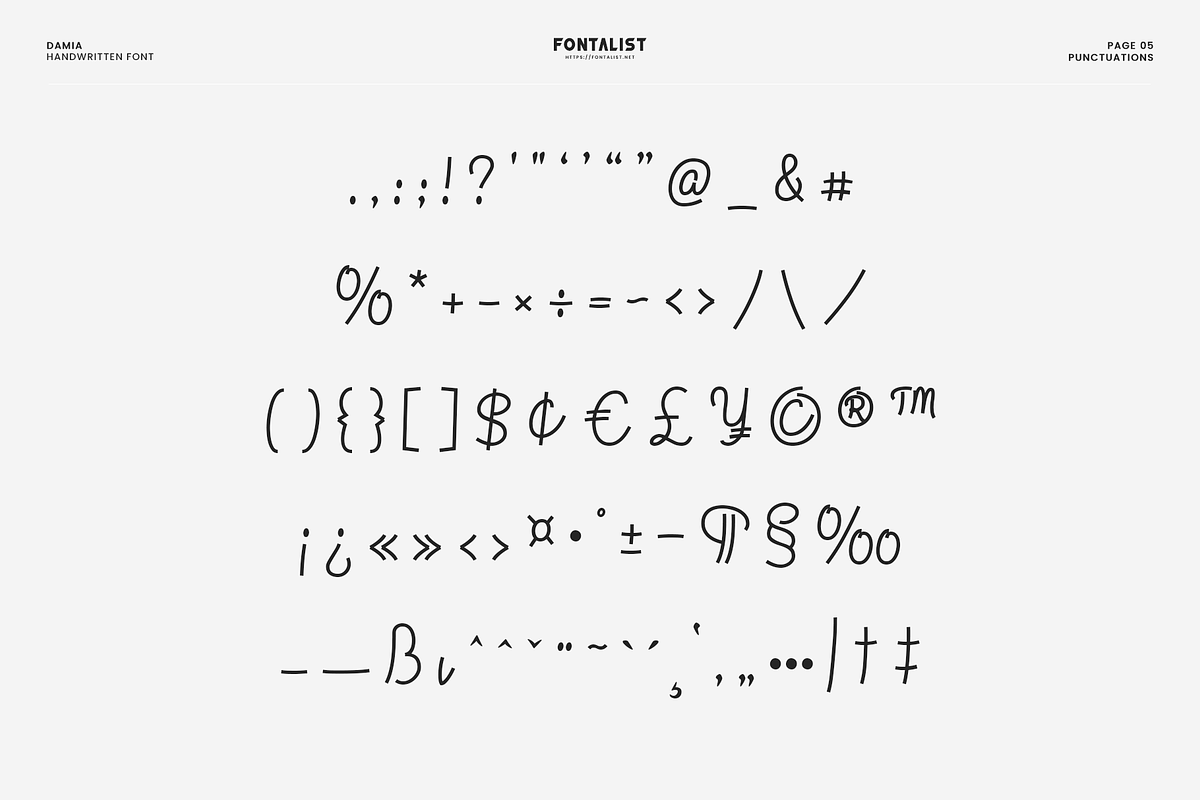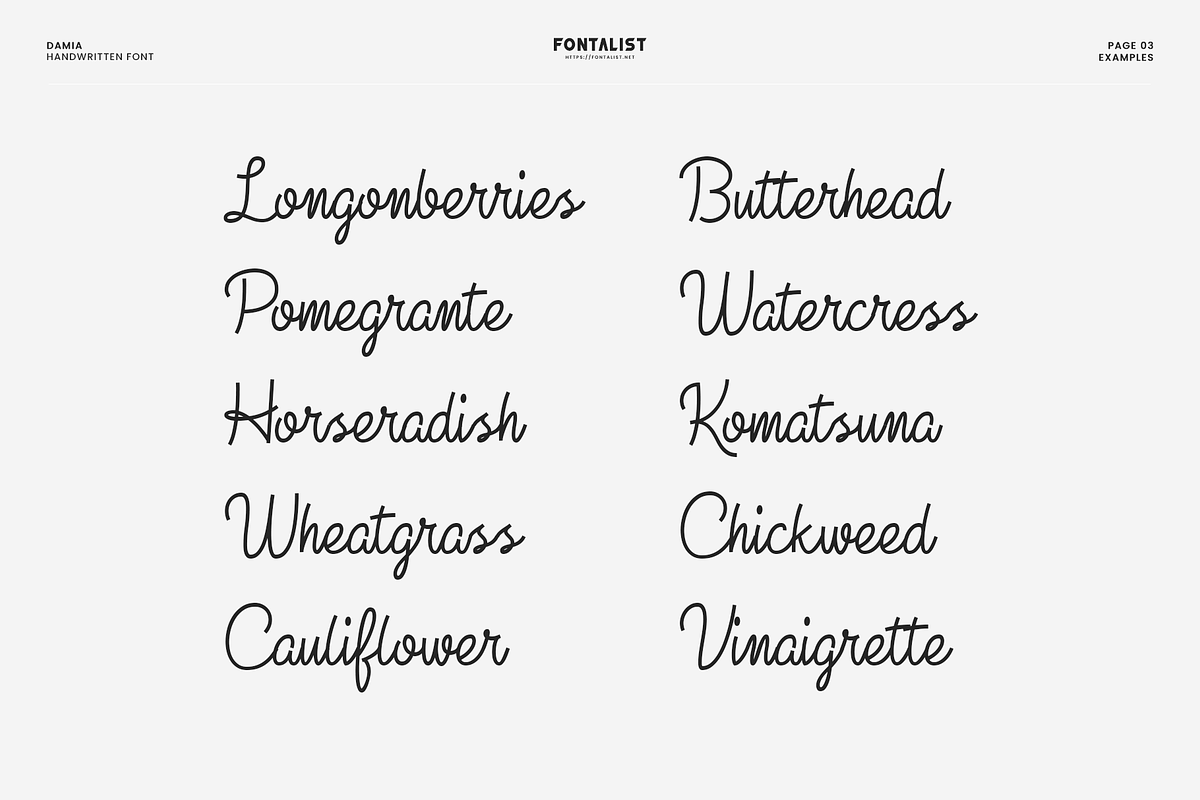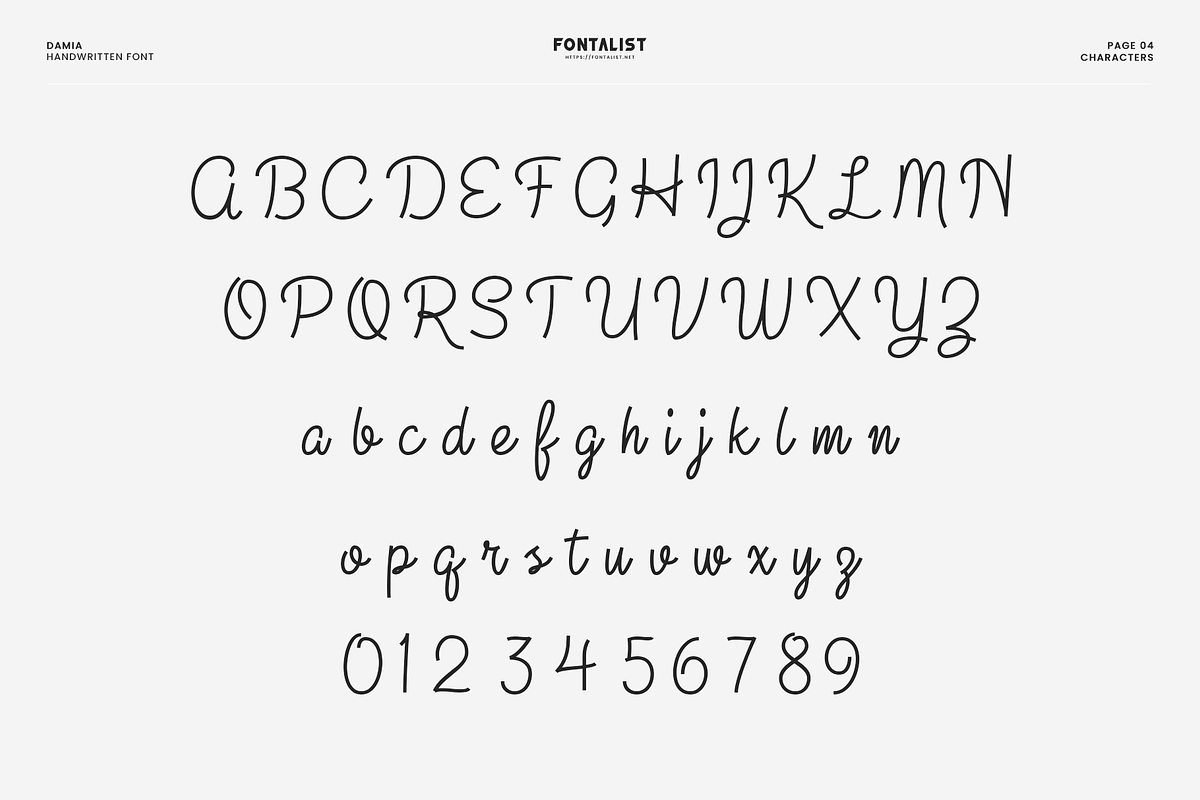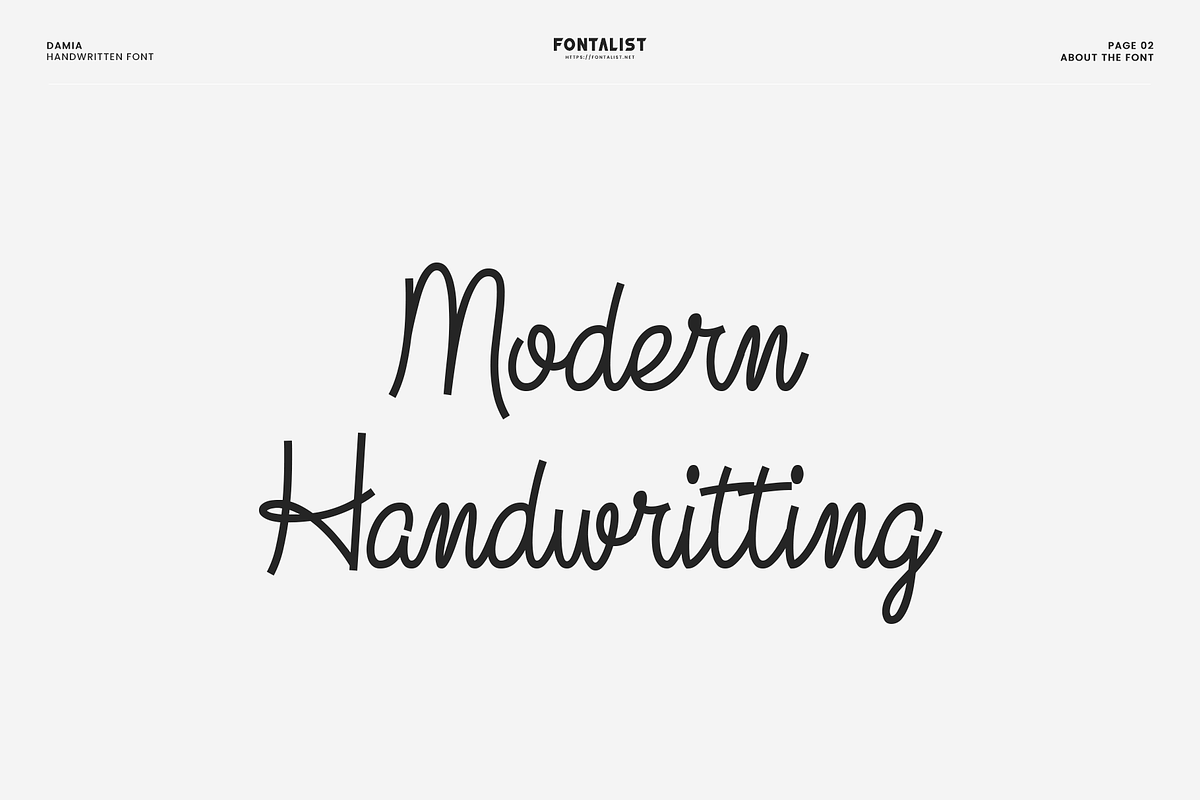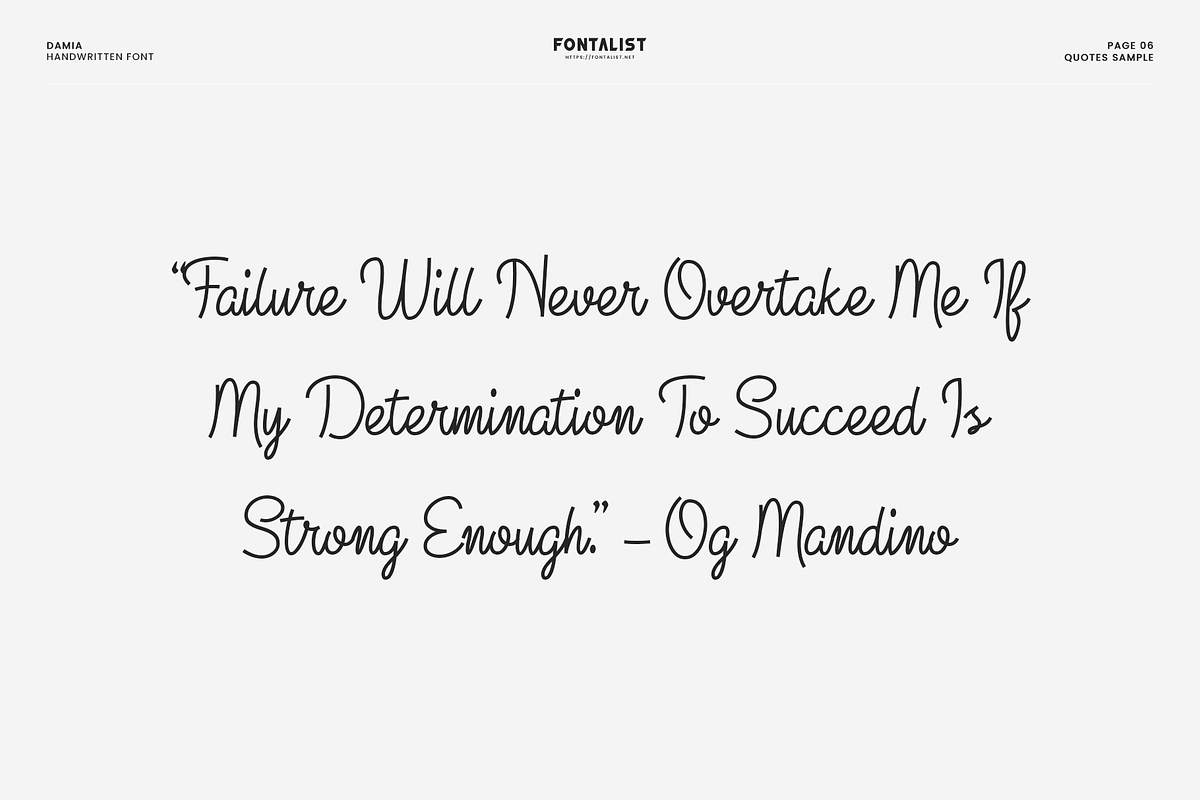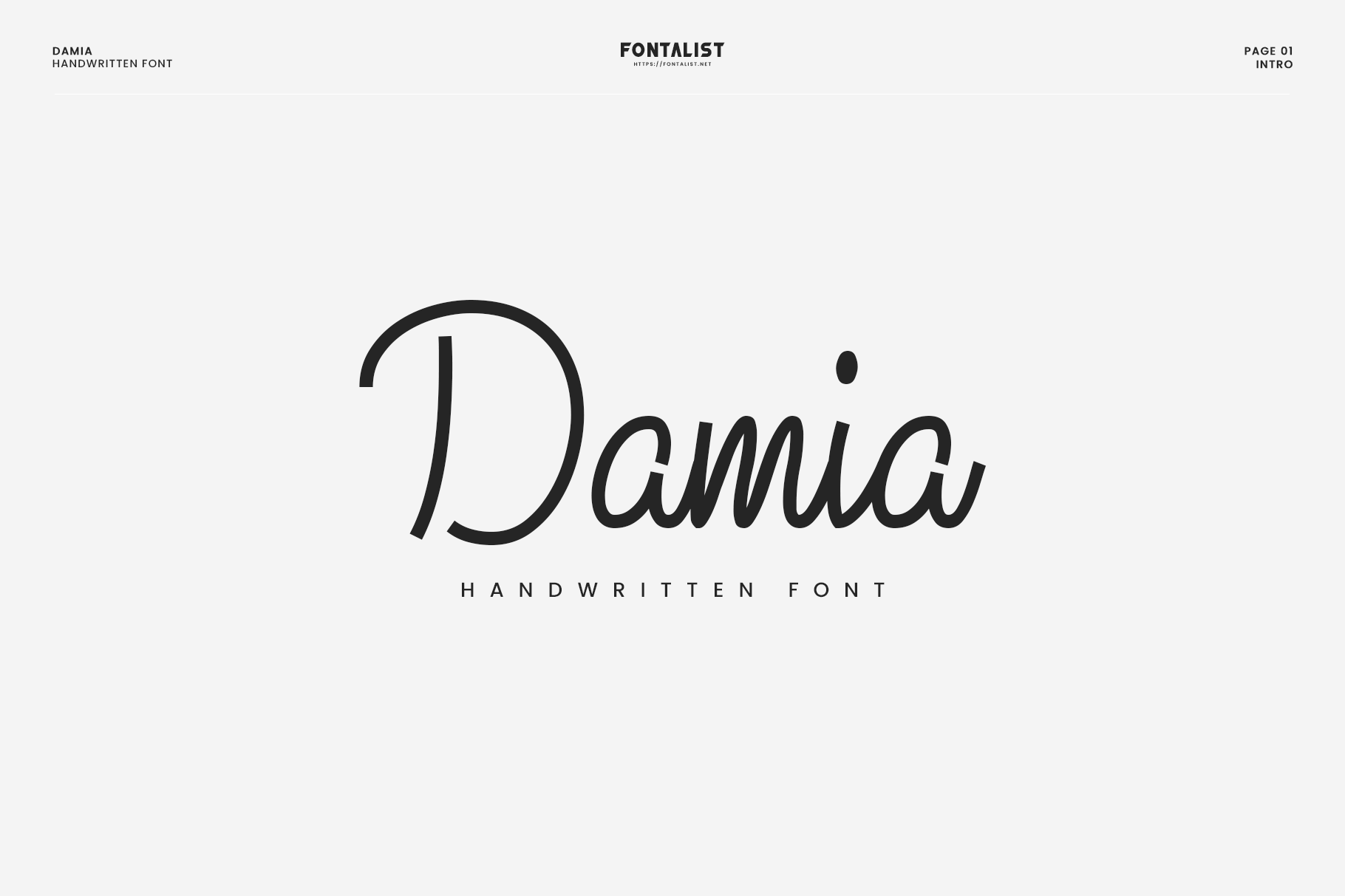
Damia Handwritting Font
Damia is a modern and simple handwriting font that suitable for title, font, book, web, magazine, movie poster, cast, social media ads, and promotions